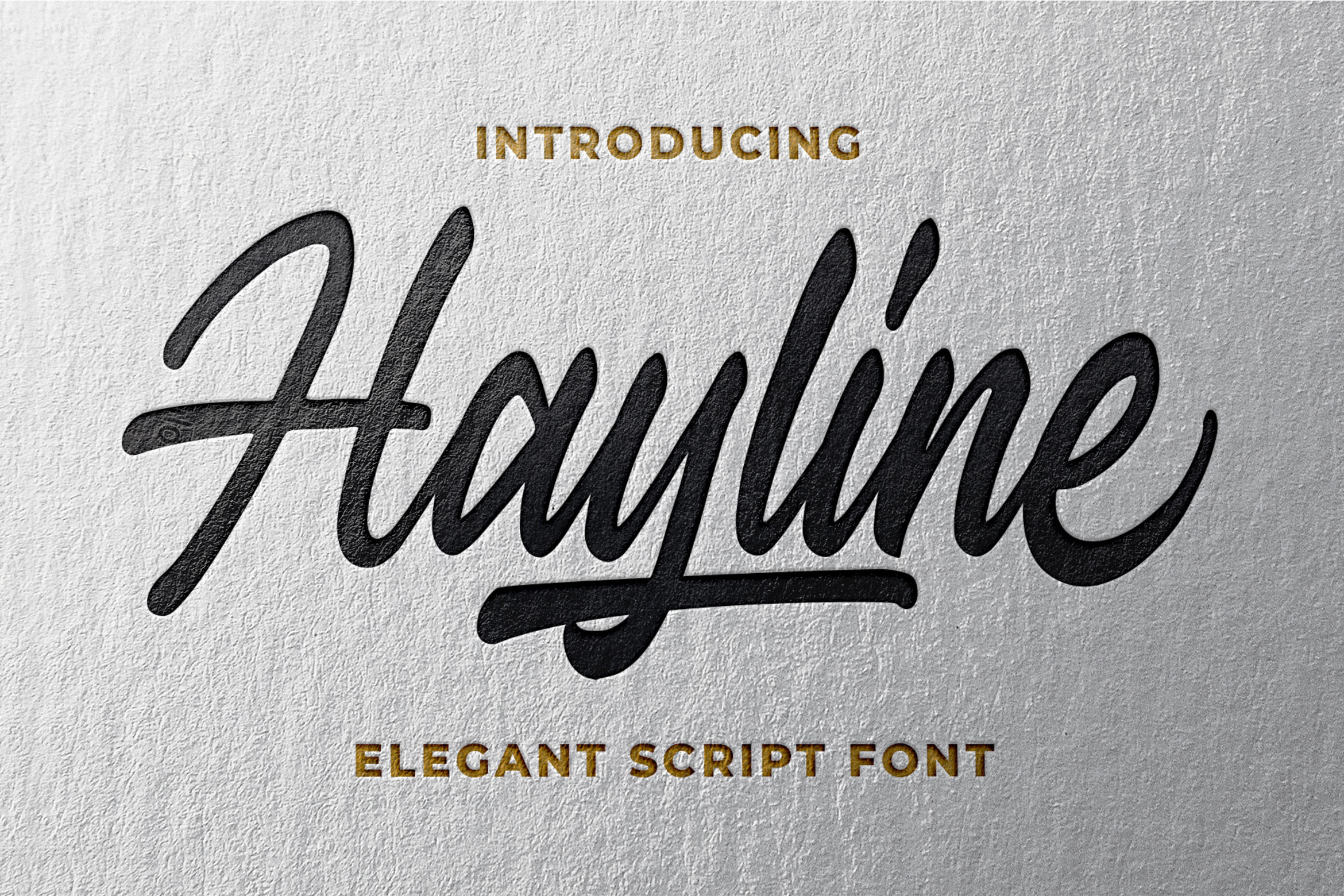
Hayline - Elegant Script Font
Introducing of our new product the name is Hayline Elegant Script Font. Hayline inspired by Clean Brush calligraphy this font is a fun theme very good for signature, poster, fashion, wedding, branding etc
MULTILINGUAL ACCENT :
ŽžŠŒšŸÀÁÂÃÄÅÆÇÈÉÊËÌÍÎÏÐŁÑÒÓÔÕÖØÙÚÛÜÝßàáâãäåæçèéêëìíîïłñòóôõöøùúûüýÿ